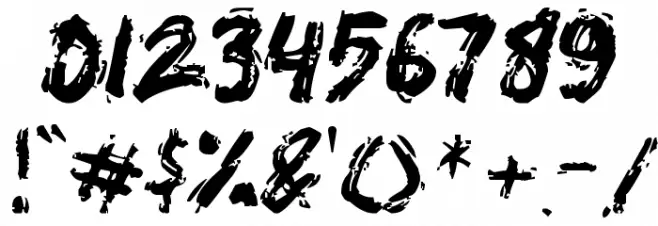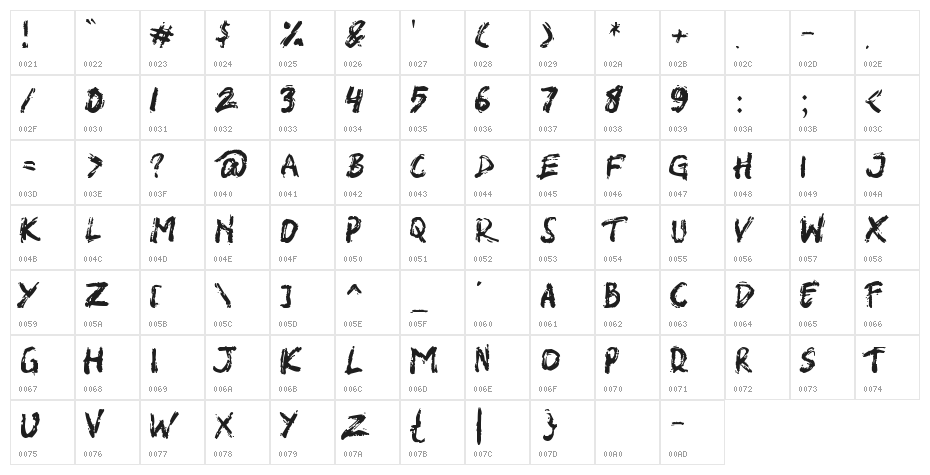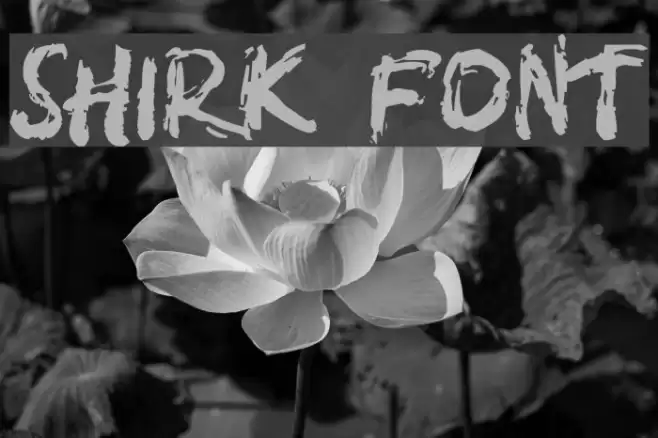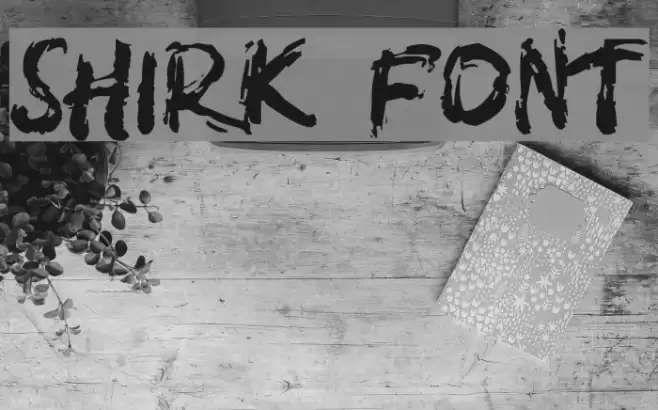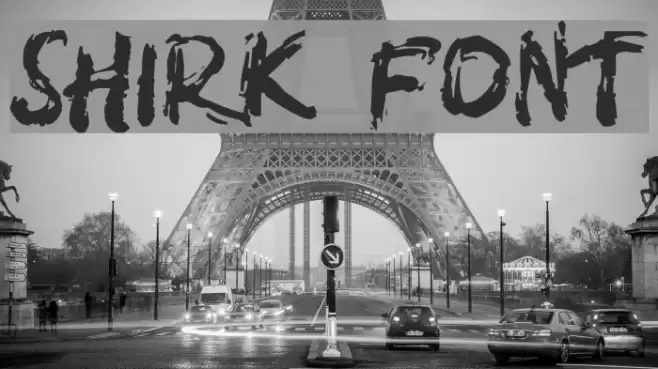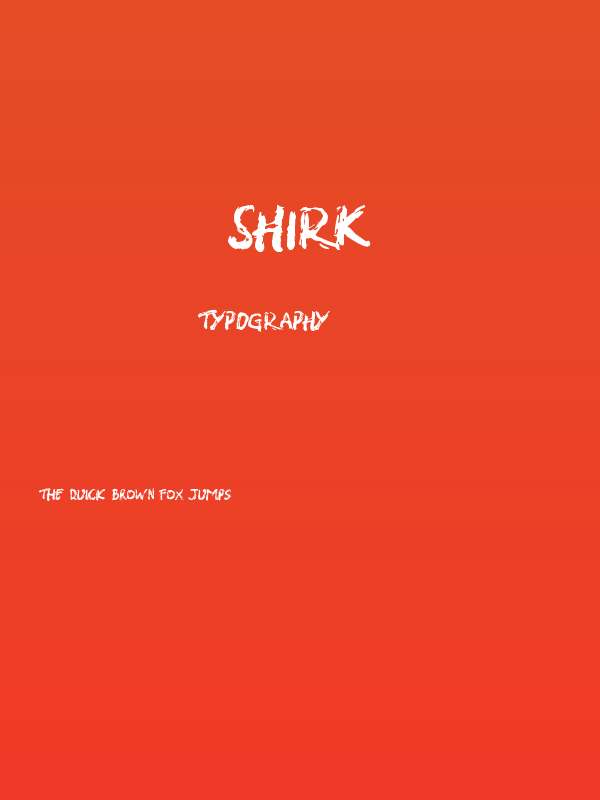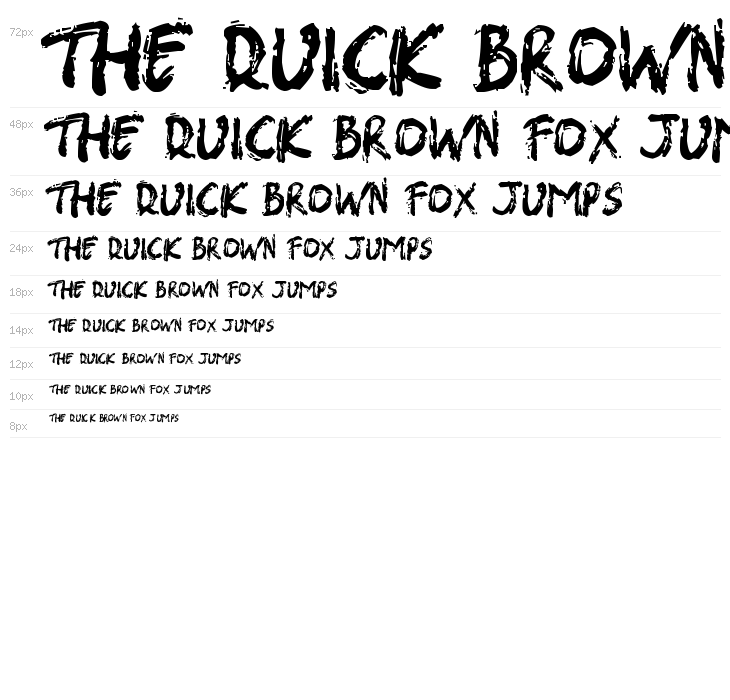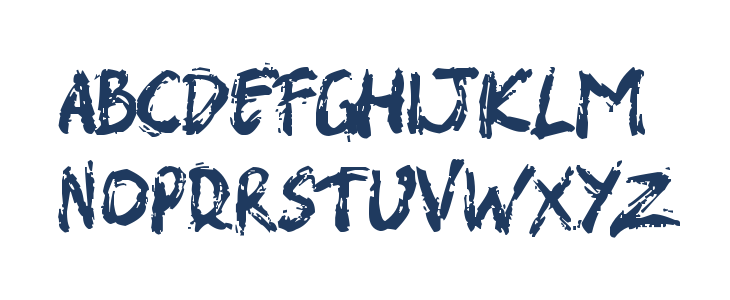
SHIRK Font
SHIRK Description
This font features a bold, expressive style with a brush-like texture that gives it a dynamic and energetic appearance. The characters are irregular and slightly distressed, adding a sense of movement and spontaneity. The strokes are thick and uneven, creating a high contrast between the filled and unfilled areas. This design choice gives the font a raw and edgy feel, making it stand out in any context. The uppercase and lowercase letters maintain a consistent style, while the numbers and special characters complement the overall aesthetic. The font's unique appearance makes it suitable for projects that require a strong visual impact.
| Proposed Projects | Ideal for posters, album covers, branding, and any design requiring a bold statement. |